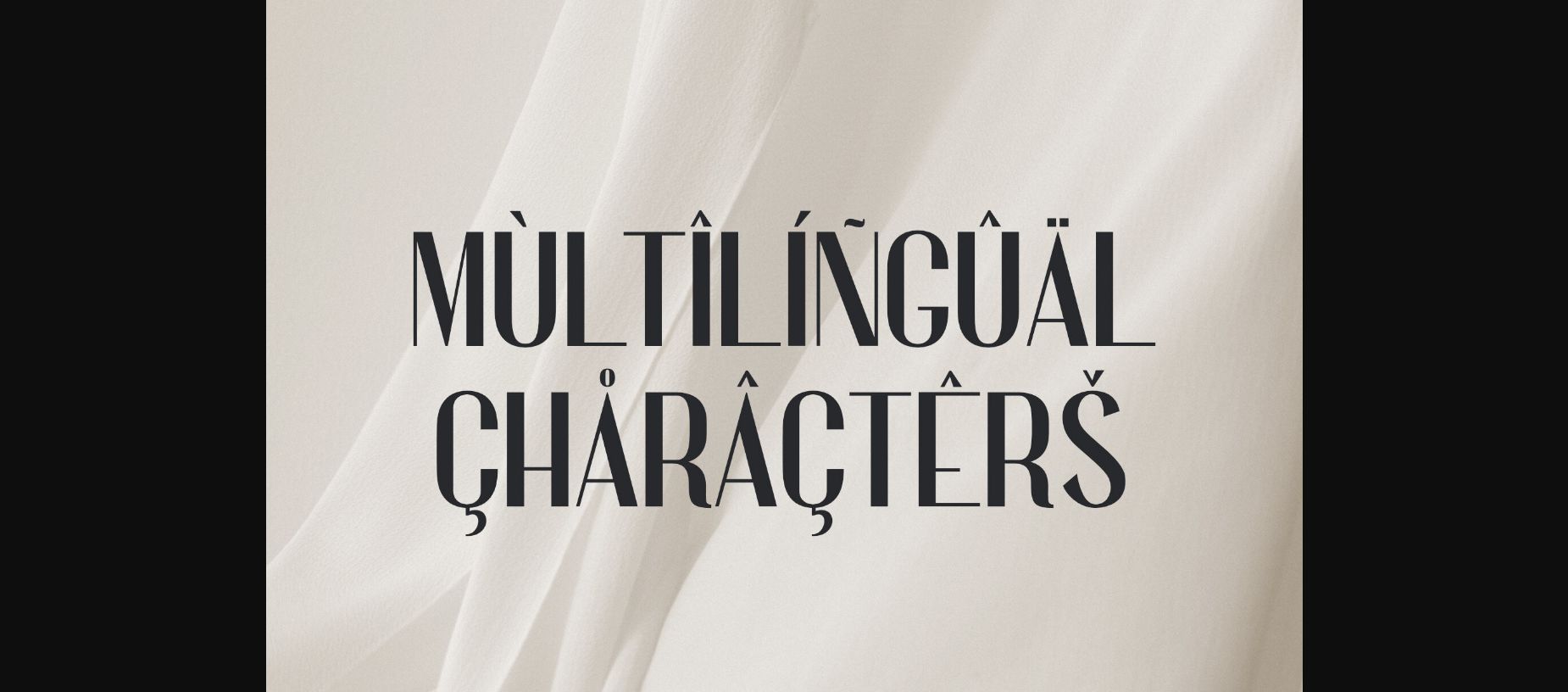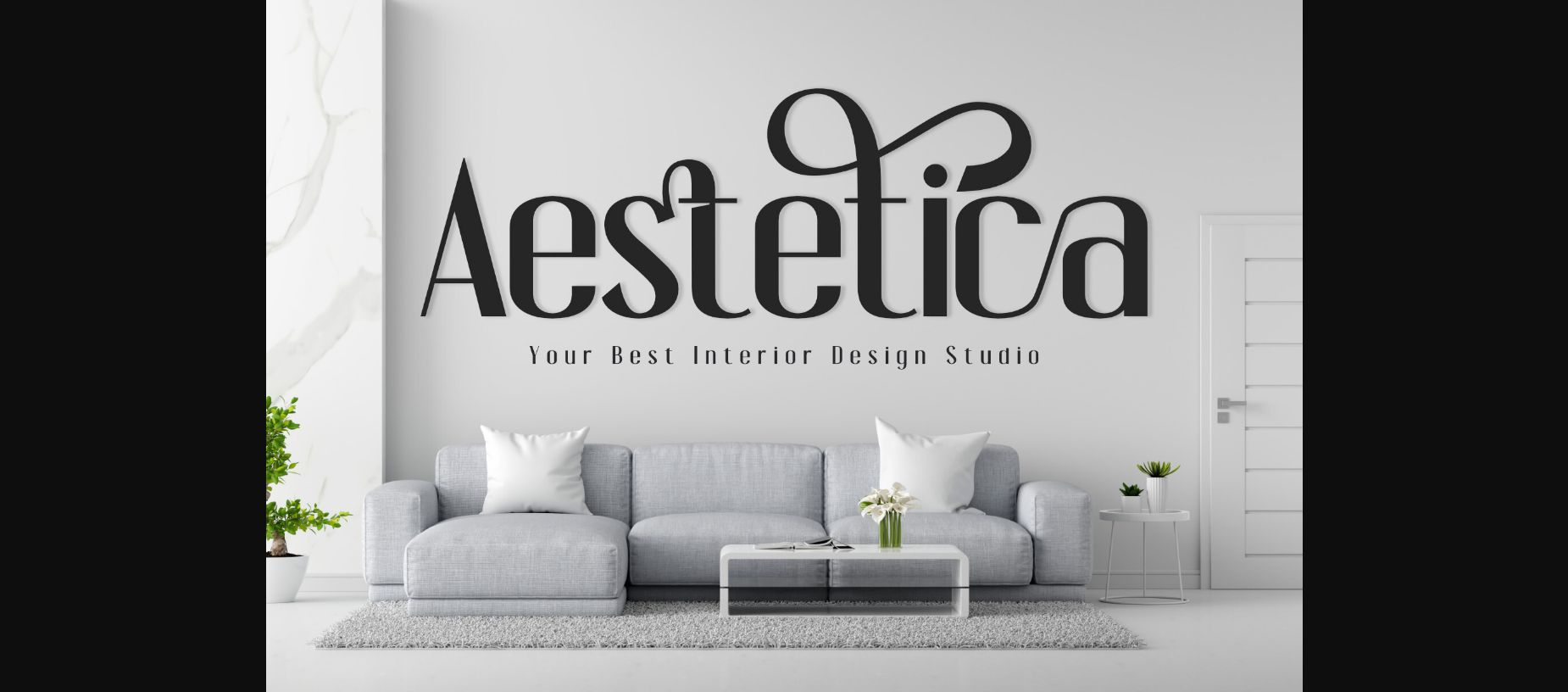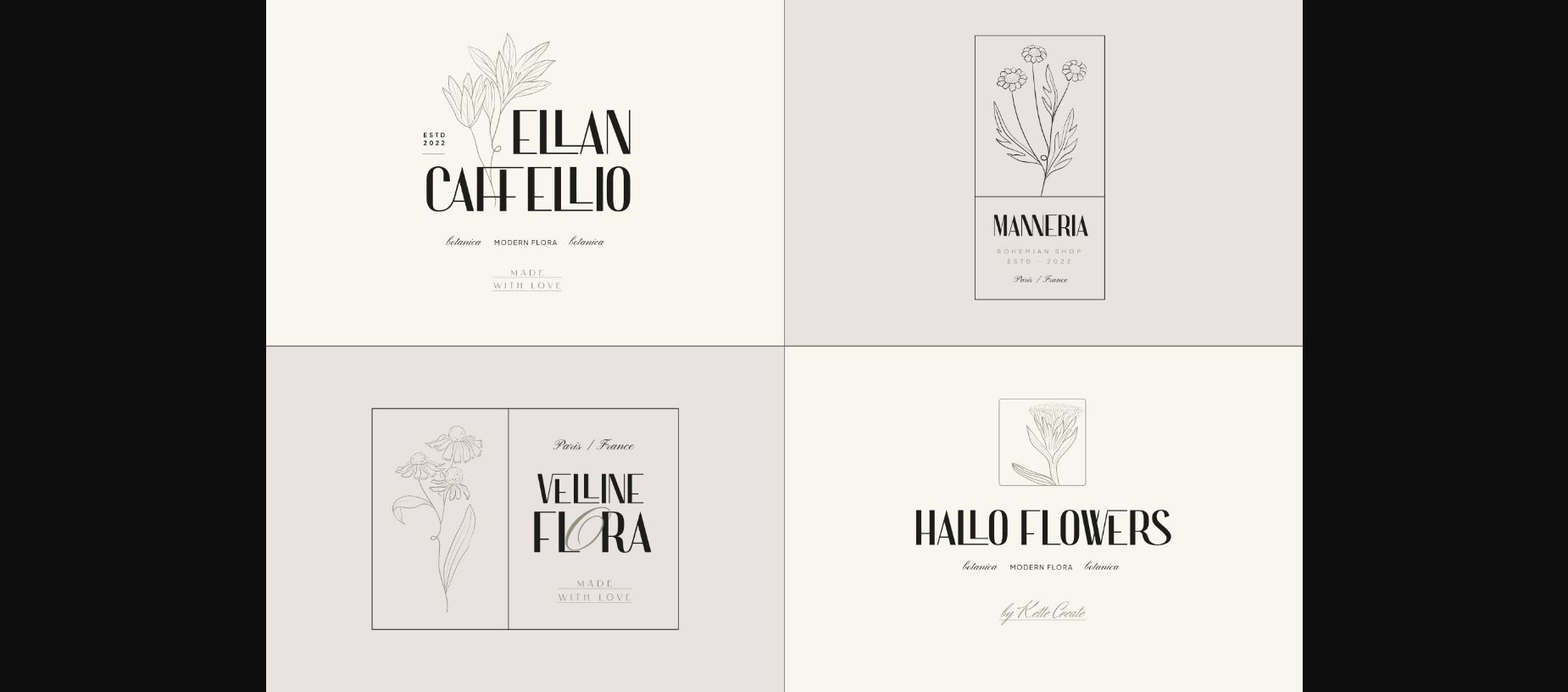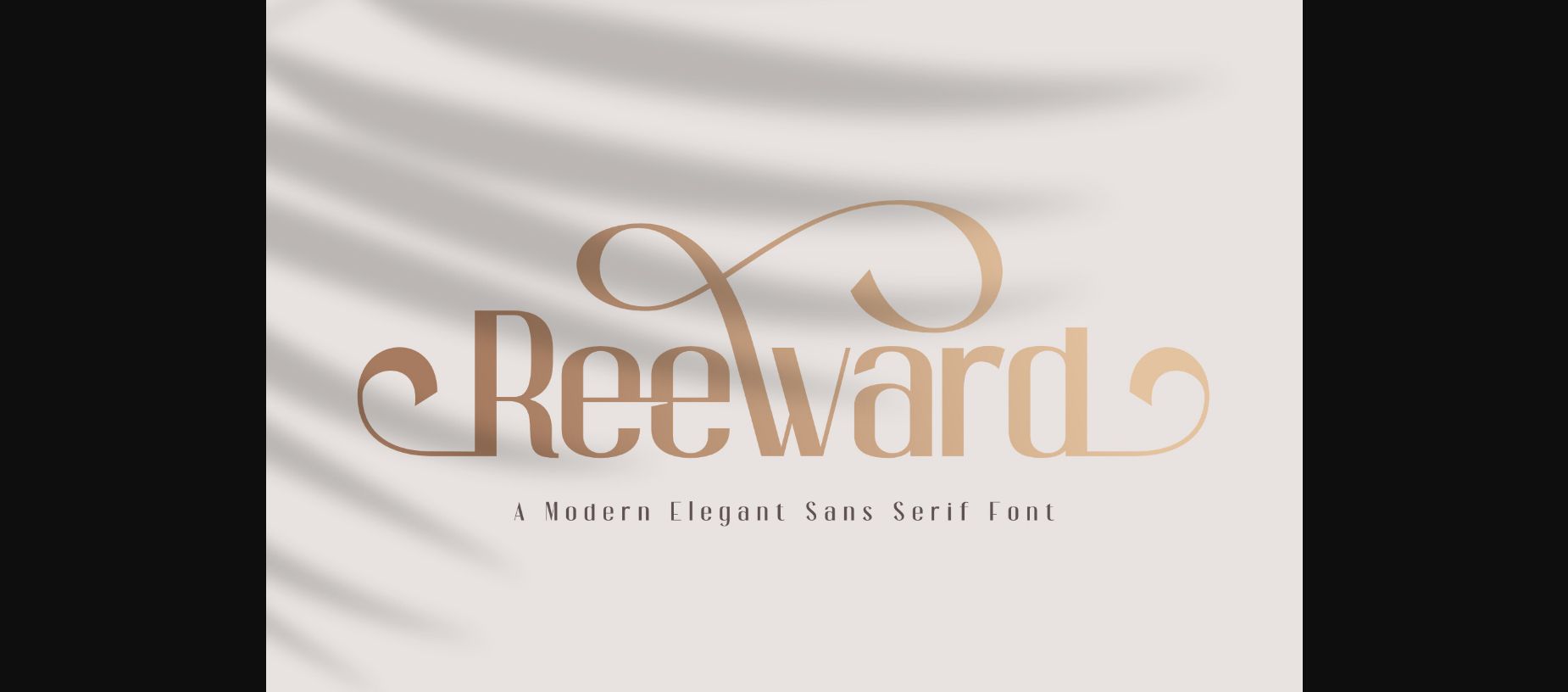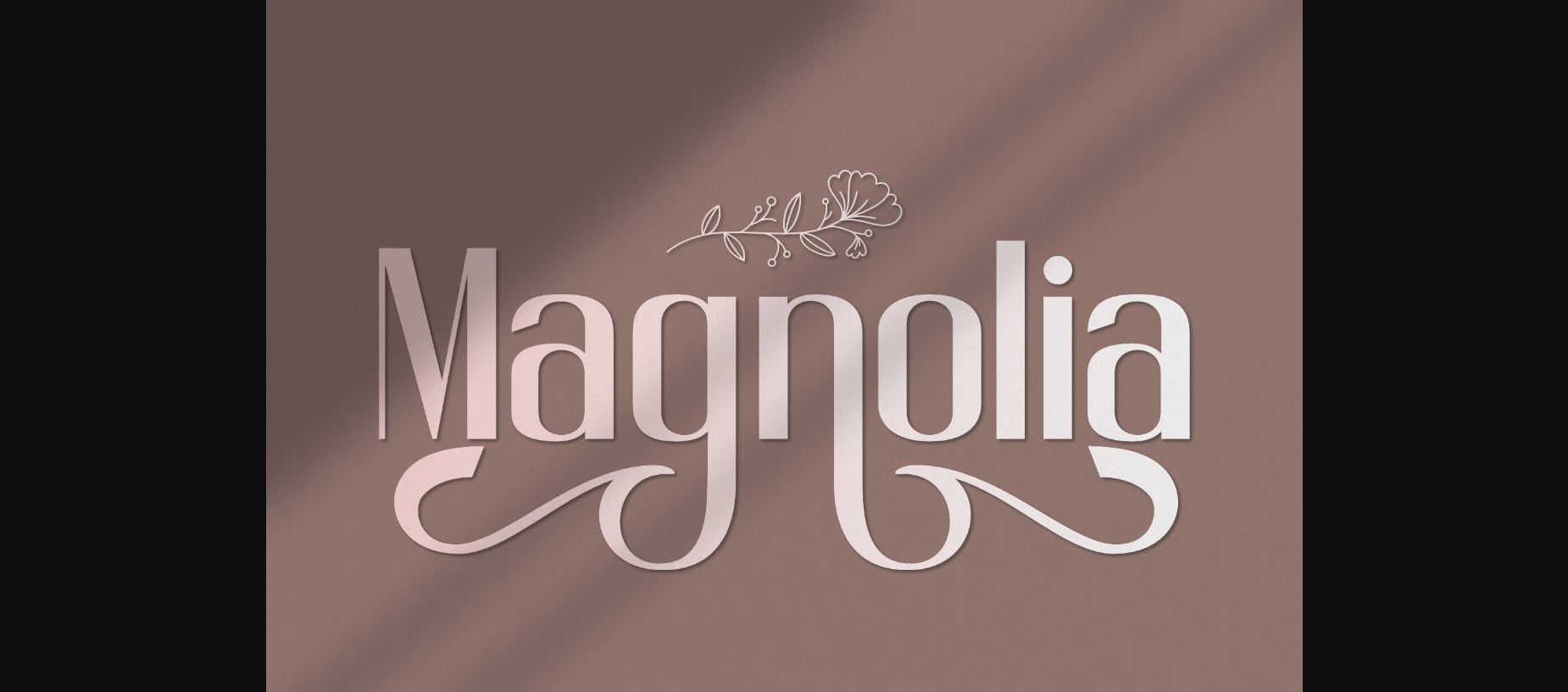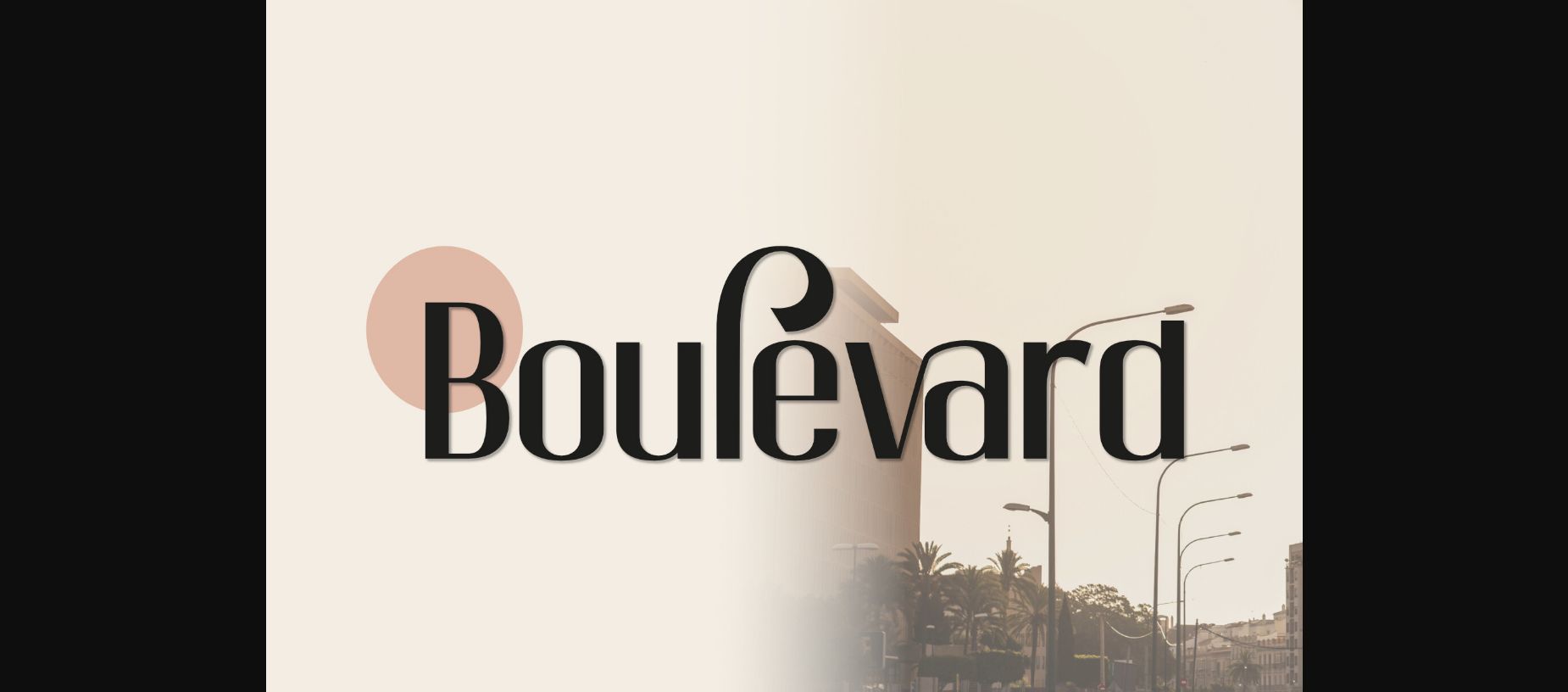
About Reeward Font
Welcome to Reeward, a modern and elegant sans serif font that features various beautiful ligatures and alternates. This font is perfect for formal and elegant design projects that want a dash of professionalism and style.
You can apply Reeward for logos, branding, business cards, invitations, and more. Reeward is simple to use and versatile, giving your design a professional and refined look. Grab Reeward today and enjoy its elegance and quality.